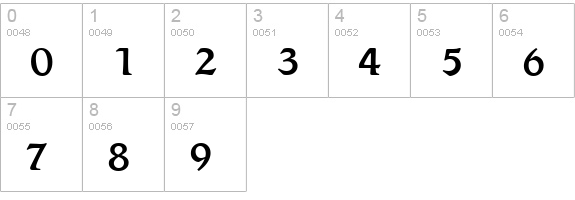
Robinson-Regular is the standard, neutral variant in the Robinson typeface family \xE2\x80\x94 well suited to general body text, paragraphs, and standard typographic work.
Robinson-Regular is a modern and versatile font that exudes elegance and professionalism. With its clean lines and balanced proportions, this font is perfect for a wide range of design projects, from branding to editorial design. The Robinson-Regular font offers a timeless appeal that will elevate any text it is applied to. Best of all, Robinson-Regular is available for free download at FontsMarket.com. This means that you can easily access this high-quality font without any cost, making it a valuable addition to your font library. Don't miss out on the opportunity to enhance your designs with the beautiful Robinson-Regular font – download it for free today!